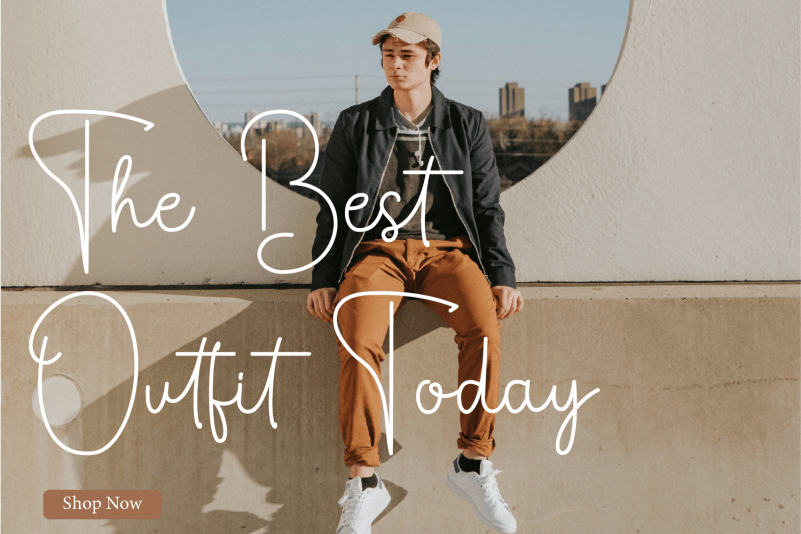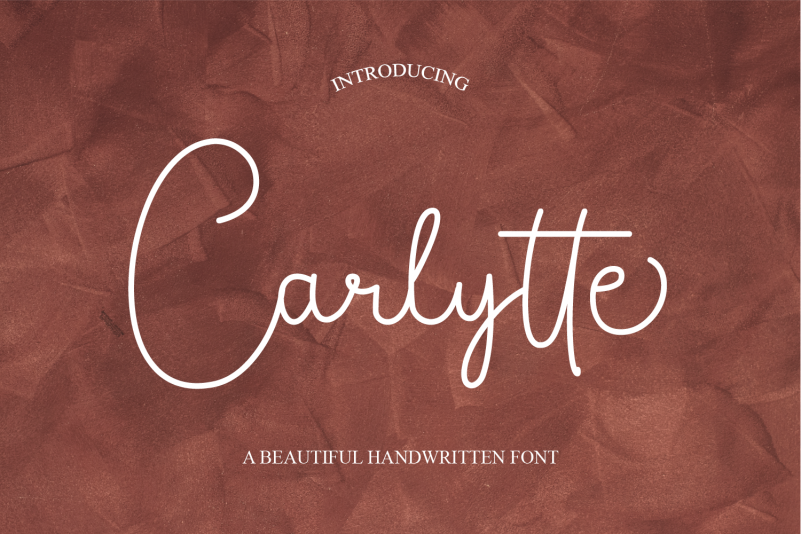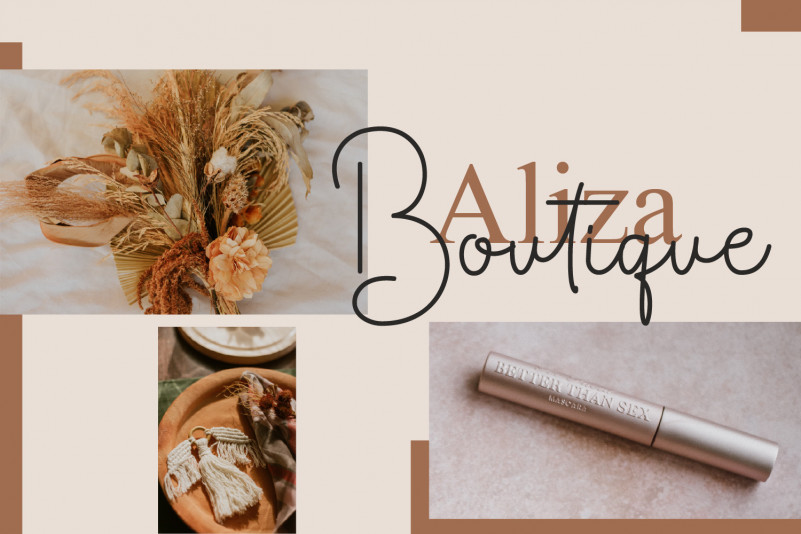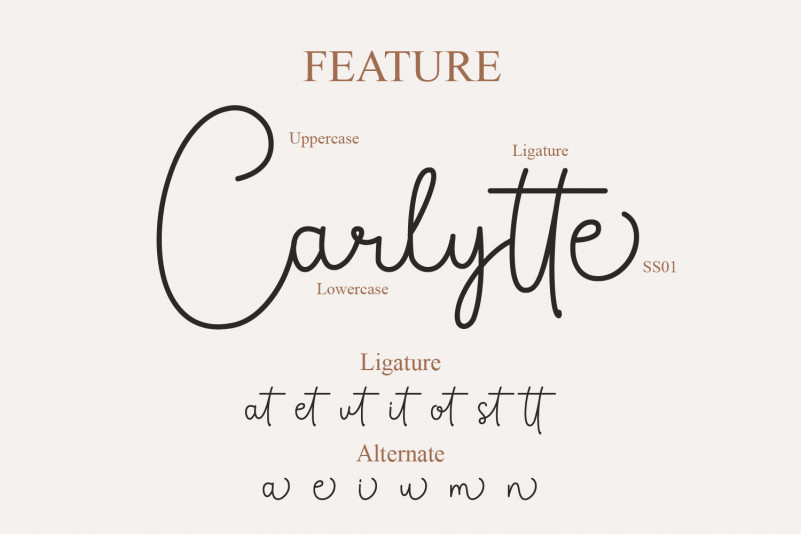
Carlytte Handwritten Font
This is a thin and beautiful handwritten font. Its distinct and well rounded letters make this font a masterpiece. Fall in love with its incredibly versatile style and use it to create spectacular designs!